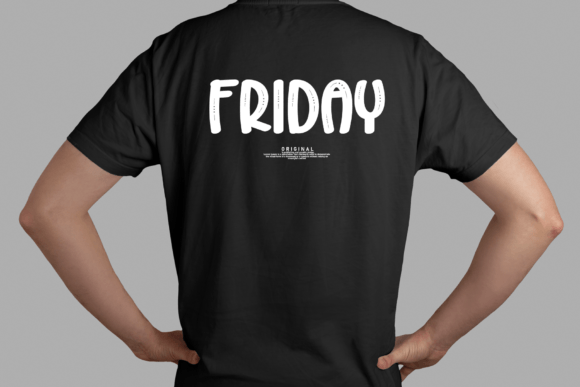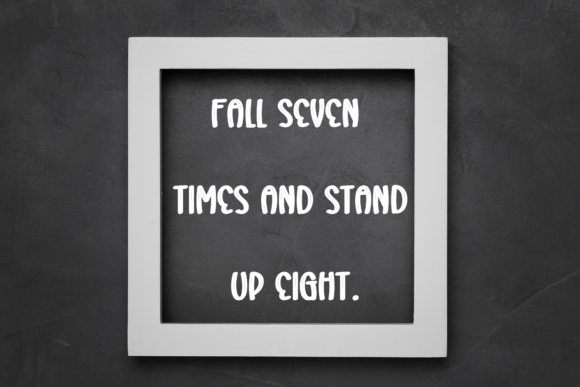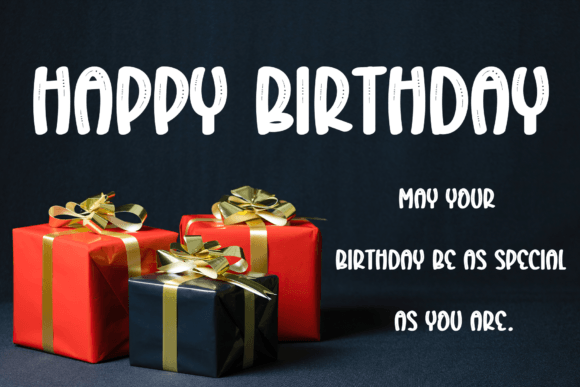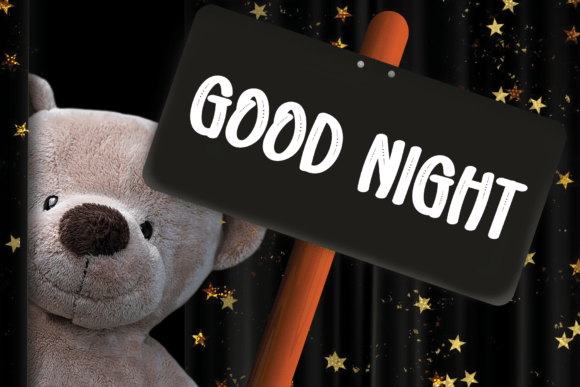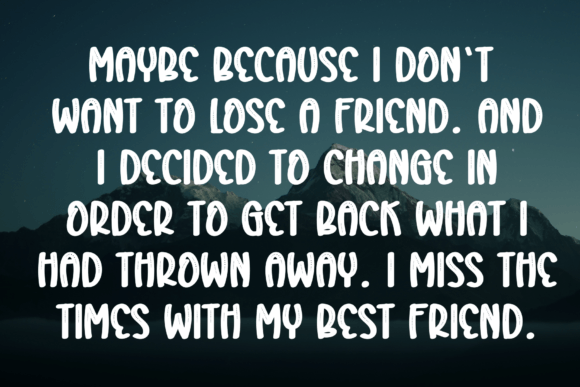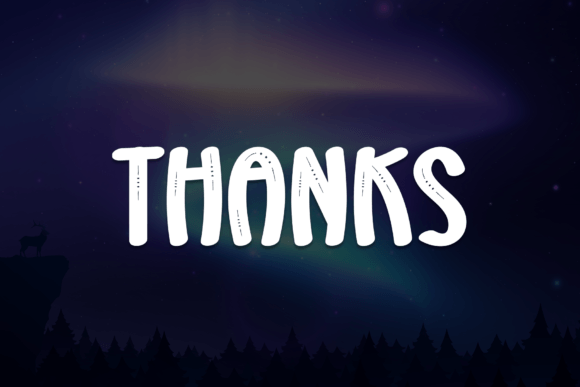
Introduction to Shiner Aurora Font
Shiner Aurora is a sweet and friendly handwritten font.
Key Features of Shiner Aurora Font
Why Choose Shiner Aurora Font?
Shiner Aurora Font offers exceptional quality and versatility, making it a valuable addition to your design toolkit. Whether you’re creating for personal projects or commercial use, Shiner Aurora Font delivers professional results.